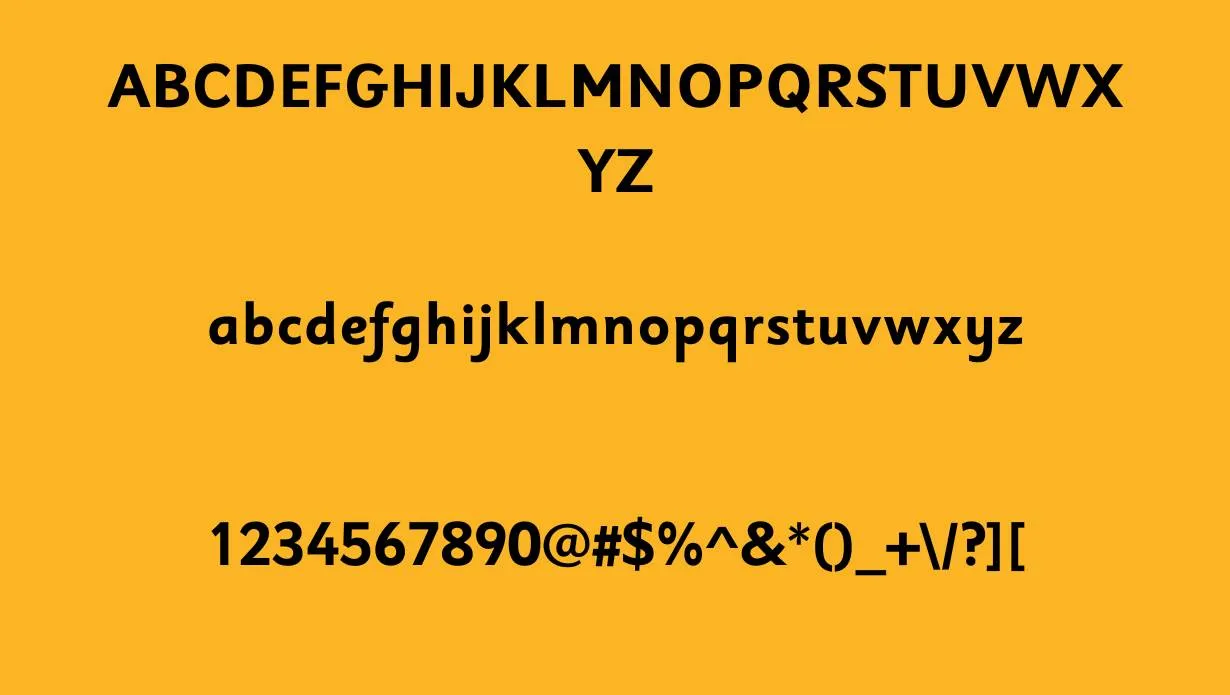
The Sassoon Font is like a friendly wave in typography, bringing a playful and approachable vibe to your designs. Ideal for creative projects or anything that desires a touch of whimsy, its characters add a sense of friendliness.
| Name | Sassoon Font |
| Designer | Dr. Rosemary |